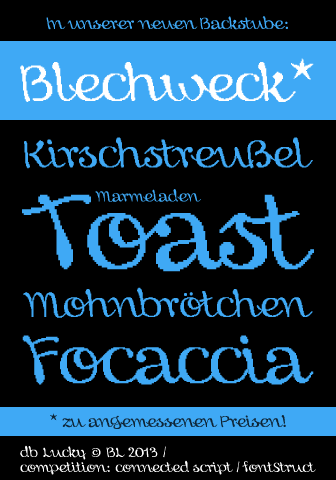
Winning material. I would reconsider x; it looks like æ.
Wow, very pretty! The subtle differences in line weight are impressive. Is it based on your own handwriting? I agree with Yautja on x.
hm_ maybe : )
and no, this is not my own handwriting ; ]
I just don't know what to say.
Sophisticated as always – and exuberant with a bouncy retro vibe! Interesting how the tilted sample seems to reverse back the reversed oblique. Really, it seems to slightly lean to the right now! The caps are quite charming – with the solitary exception of J which is lacking contrast and seems bent in the middle.
Damn! This is just the kind of font that I would have done (and I will not be able to do)! Congrats!
Very nice to see you and: I love this music ! Wow : )
a spectacular entry and incredible work. congrats and good luck.
Absolutely gorgeous! 10/10
You're lucky to had this amazing font!!
omg
I think you already won :p
We don't stand a chance against beate! I'm not sure if Q or k work very well looking at the other letters.
Such tough competition... What a charming handwriting font!
Unbeateable.
Game over. :)
x much better like this!
5 stars instantly. Now, maybe you could bring back more of your fonts?
This is so beautiful and elegant
HOW DO PEOPLE DO THIS KIND OF THING
Congratulations! FontStruct Staff have deemed your FontStruction worthy of special mention. “db Lucky” is now a Top Pick.
At last recognition for this unusual script, the reverse slant is subtle, easy to read and very attractive :) Congratulations on the TP :)
So Simple, Beautiful, Pixelated, It's a perfect font!
simple and clean, Nice Font beate.
Oh heck, yeah!  I love it.  Great job, pixel fonts don't always excite me, love this one!
I.. dont know what to say, but its a good font!